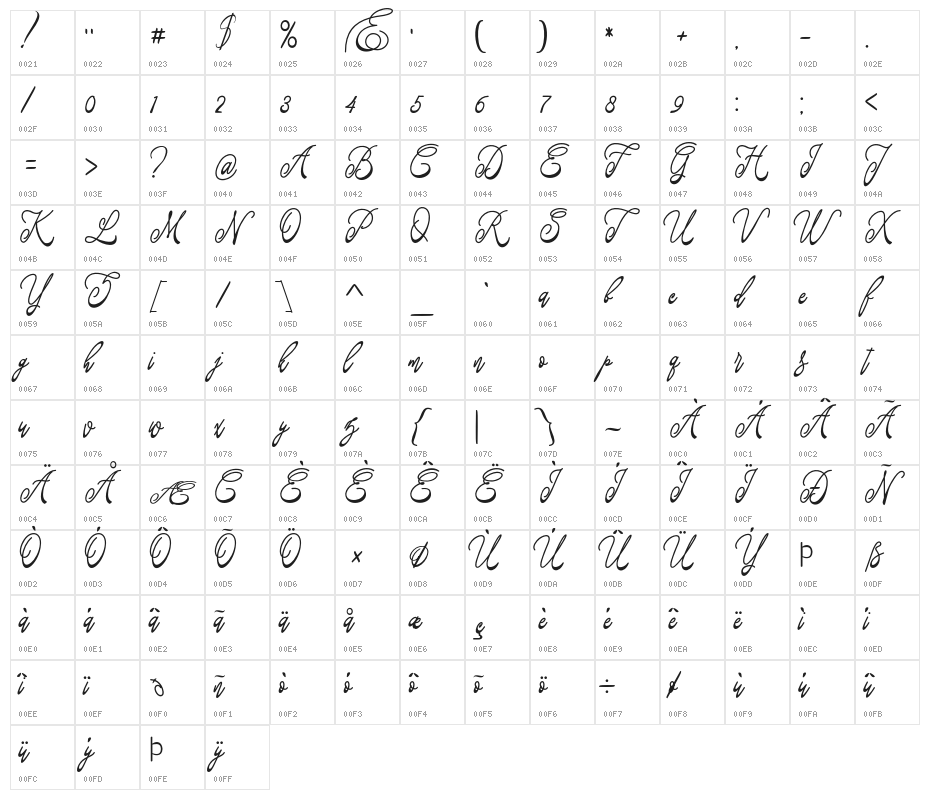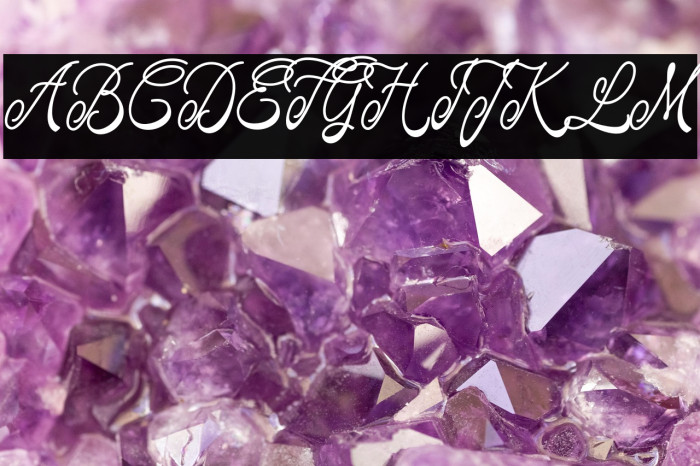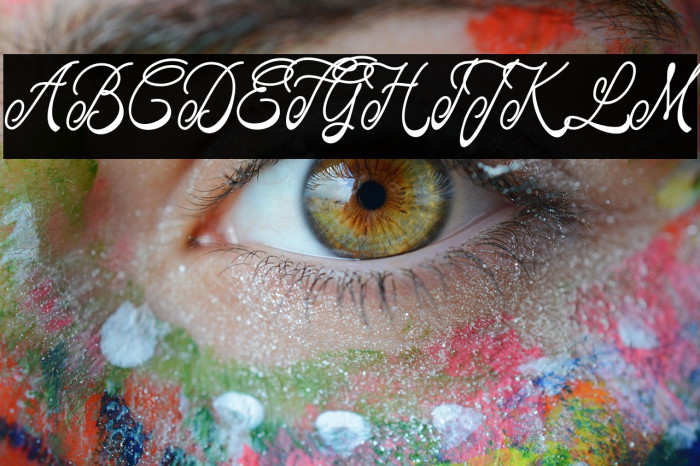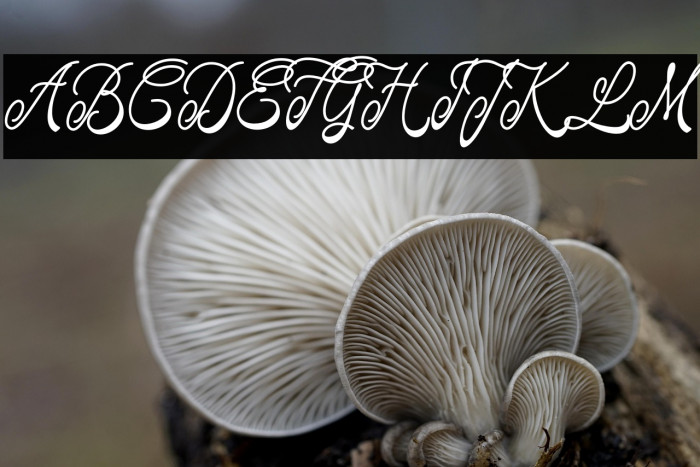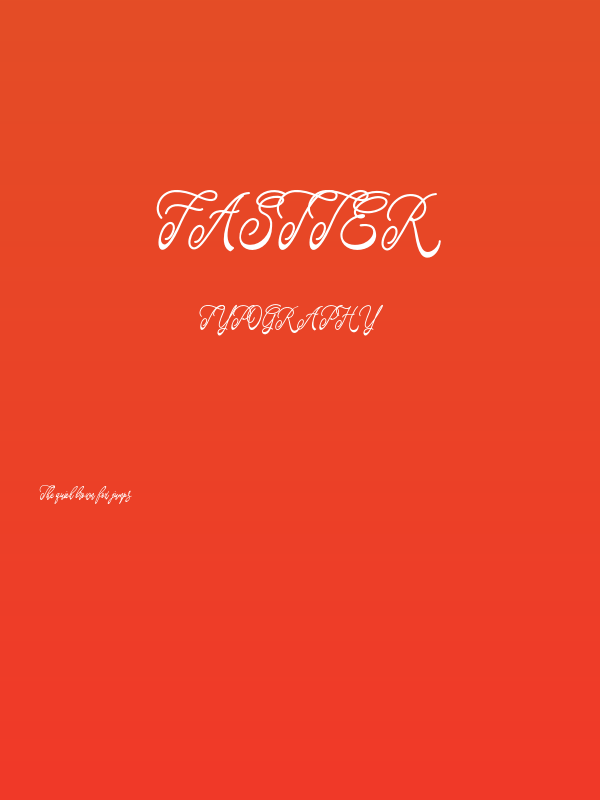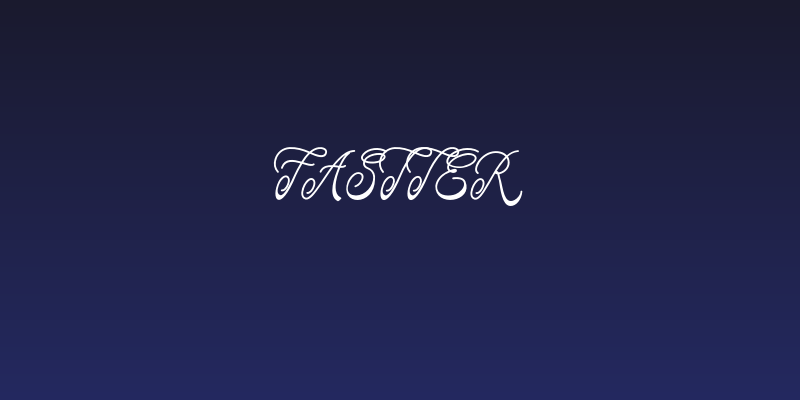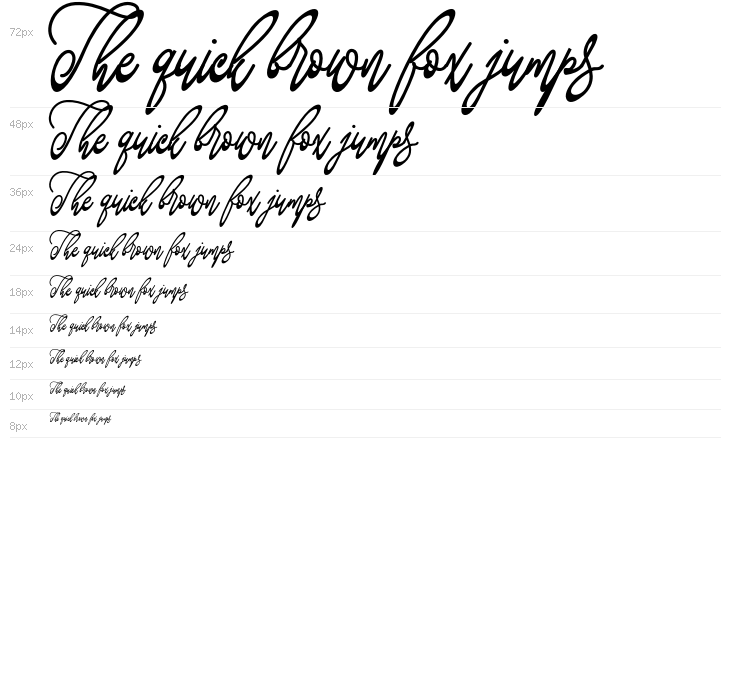
Fastter Font
Fastter Description
This font features an elegant, flowing script style that mimics the fluidity of cursive handwriting. The uppercase letters are intricately designed with loops and swirls, giving them a sophisticated and ornate appearance. The lowercase letters maintain a consistent style, with smooth, connected strokes that enhance readability while preserving the decorative nature of the font. The numerals are clear and maintain the script's elegance, making them suitable for formal and decorative purposes. Special characters are crafted with the same attention to detail, ensuring a cohesive look across all glyphs.
| Proposed Projects | Ideal for wedding invitations, elegant branding, greeting cards, and decorative certificates. |